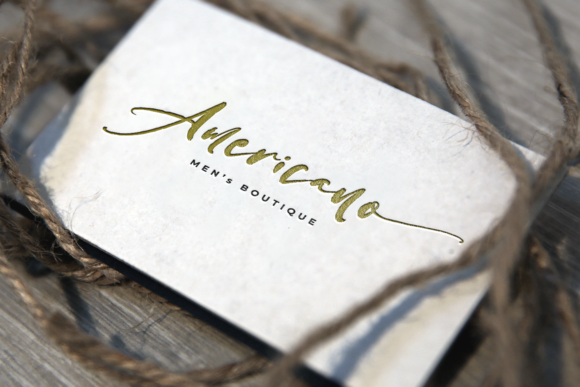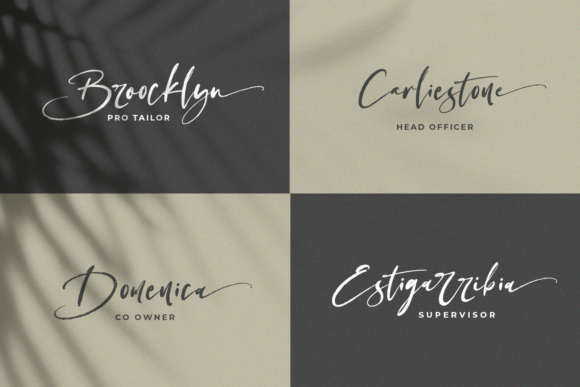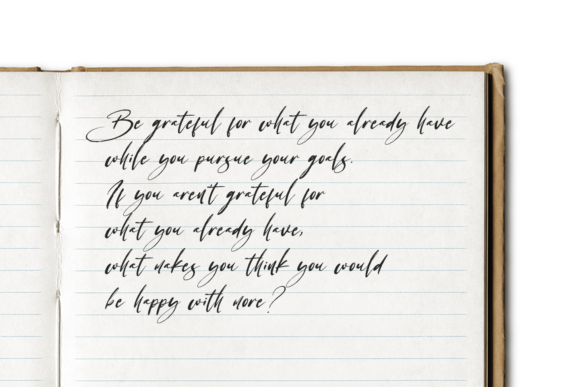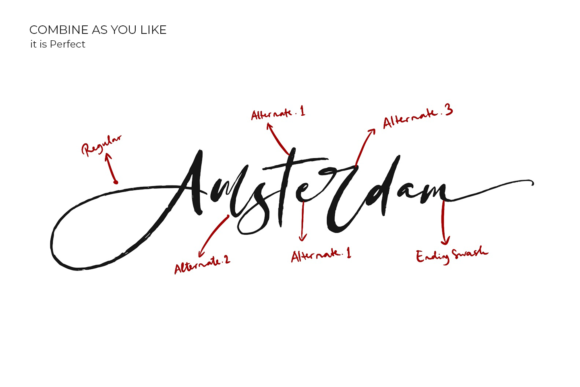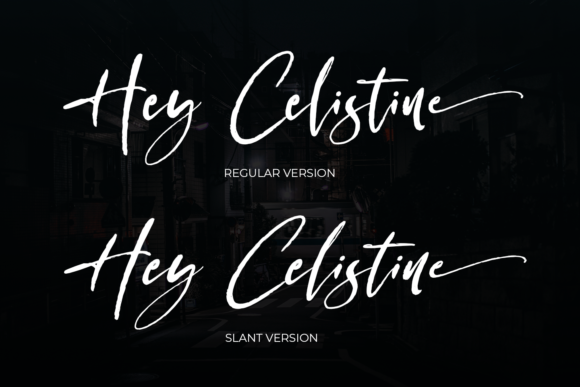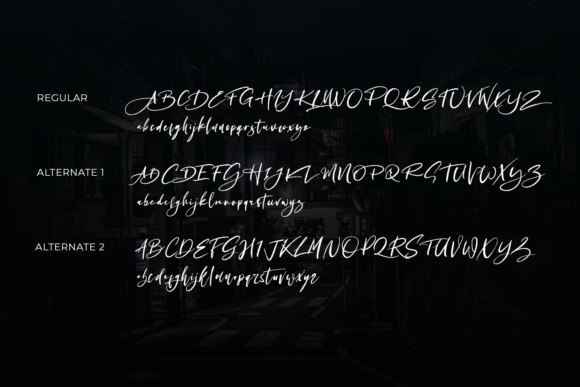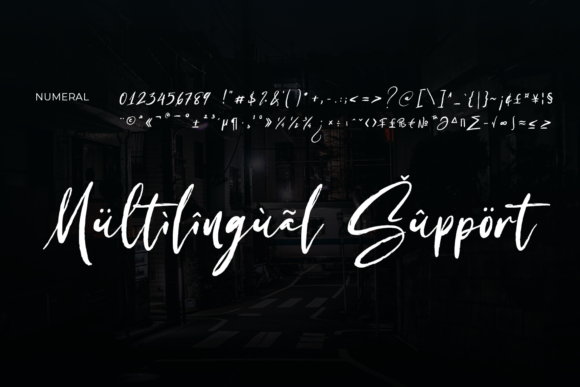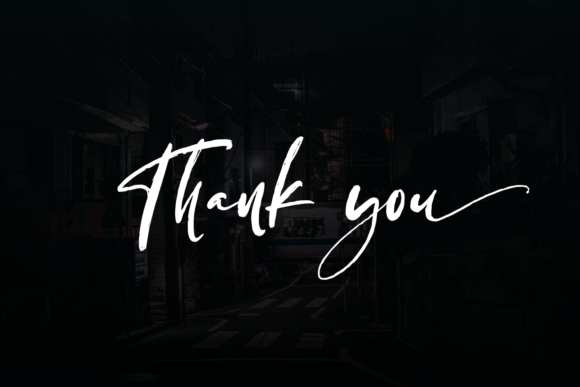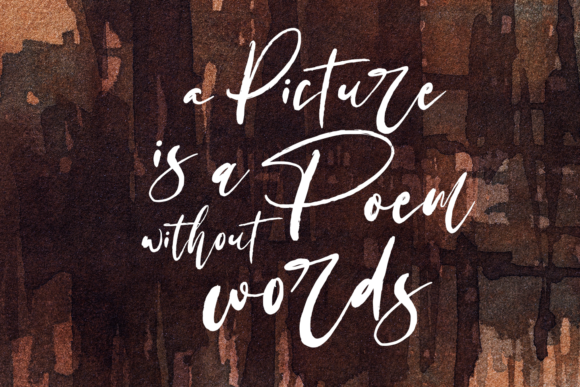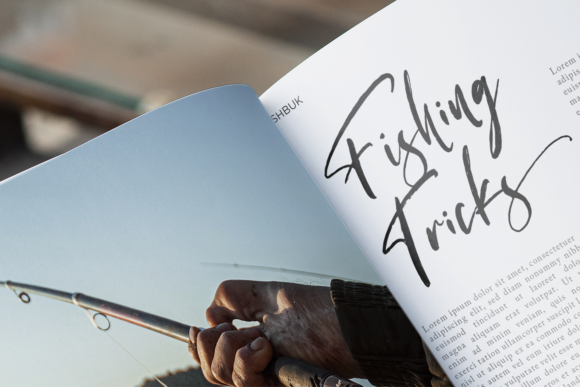
Antariksa Font
About Antariksa Font
Antariksa features beautiful swashes and gorgeously rich lines, which make this font appear incredibly sophisticated. This fancy calligraphy script comes in two distinct styles, Regular and Slant, that will allow you to create a wide variety of results.